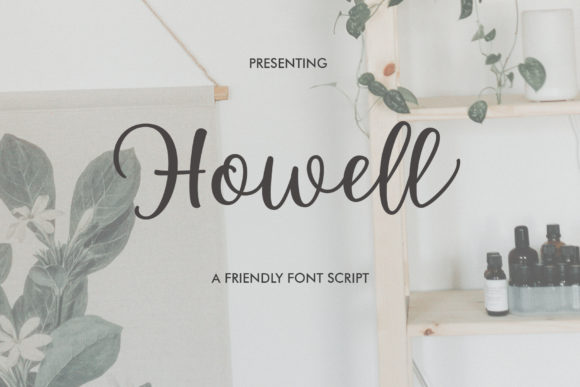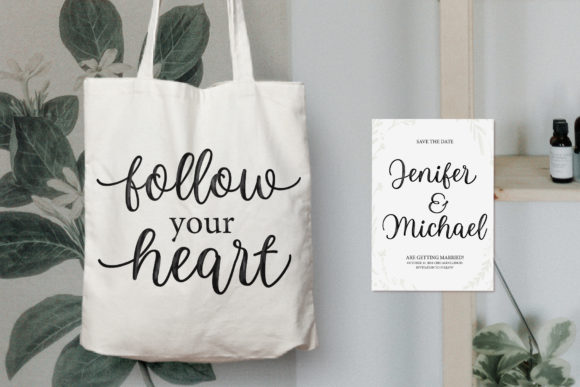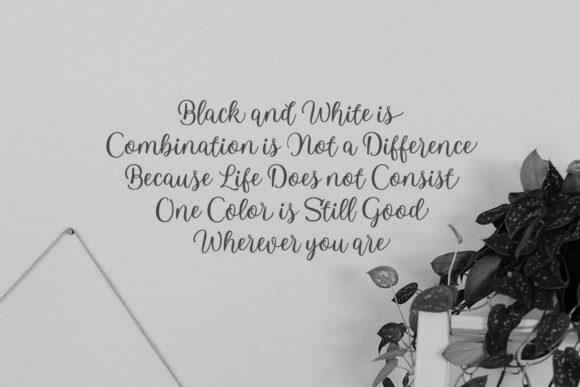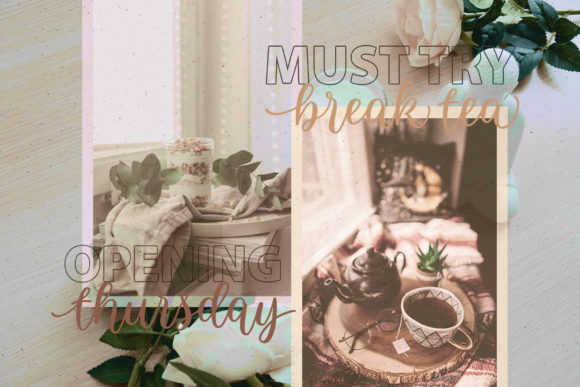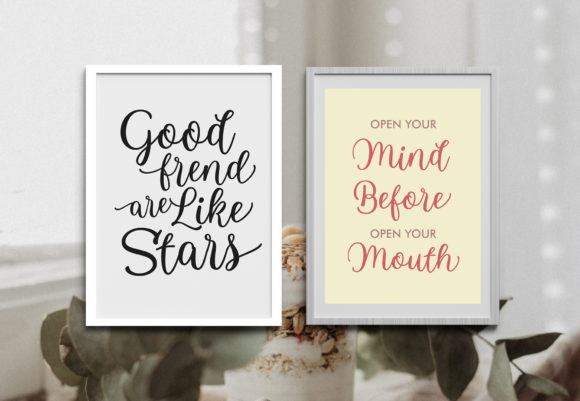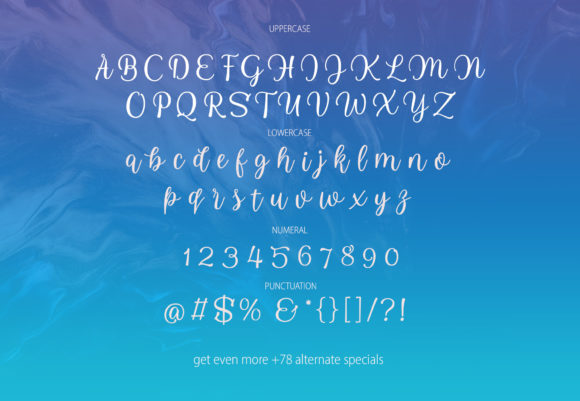
Howell Script Font
Howell is a splendid script font that has been given a combination of fantasy and handwritten ink. This font will look beautiful in all designs, Wedding designs, branding materials, blog titles, quotes and invitations, business cards, etc.